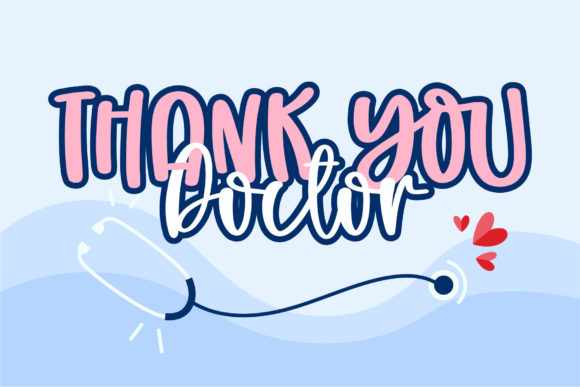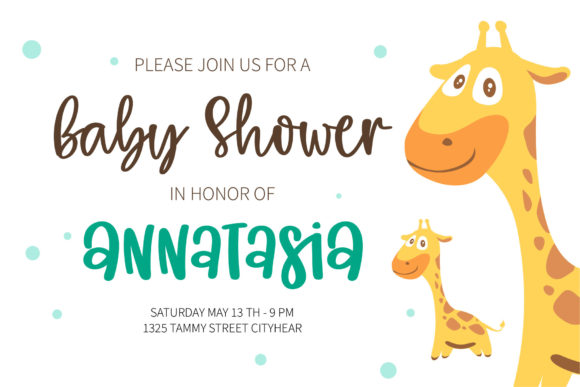
Thank You Baby Font
db-ku.com - Script & Handwritten -- Thank You Baby is a duo styled handwritten font which feels equally charming and delicate. Its stylish alternates and ligatures make this font the perfect match for any project.